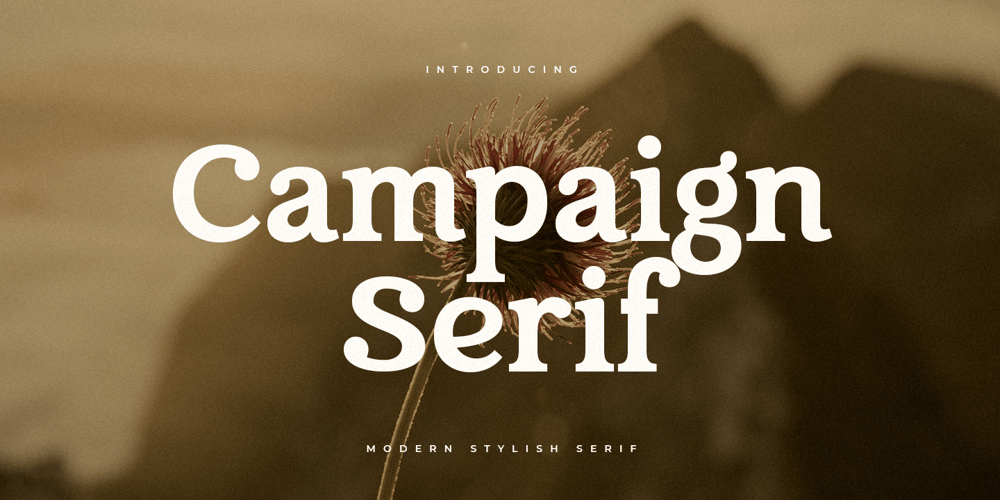
Campaign Serif Font Family was designed by Zamroni Hamzah and published by Sensatype Studio. Campaign Serif contains 1 styles and family package options. Campaign is a Modern Stylish Serif Font that we created special for Display, Modern logo and Branding needsA new Serif font that is nice to leverage designer or product owner that need solutions to make their design look more gorgeous and modern. And specially for Campaign font, We prepared any characters to help you create gorgeous for your creative needs specially for headline, and typography needs.Campaign Modern Stylish Serif font ready with: Stylish Shape to get creative Preview as a inspirations that you can do with Campaign font Ready with Lowercase and Uppercase characters Wish you enjoy our font. ๐